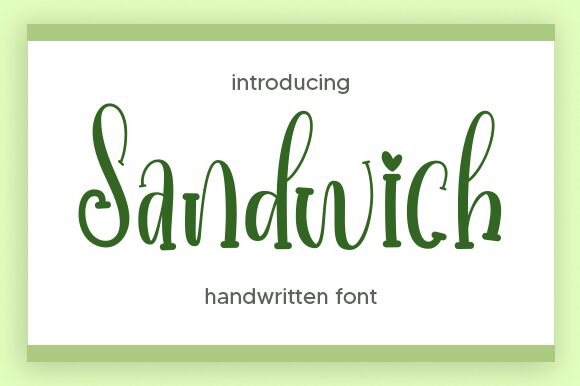
Sandwich, the delightful semi-light handwritten font by Nirmala Creative, is the perfect addition to any creative project. With its extra-condensed width, it's ideal for bold headlines and attention-grabbing titles. Its playful yet sophisticated style makes it suitable for a variety of projects such as food blogs, lifestyle magazines, and fashion editorials. This versatile font can also be used for branding materials such as logos and packaging design. Let Sandwich add a touch of personality to your next project with its unique charm and whimsical flair.